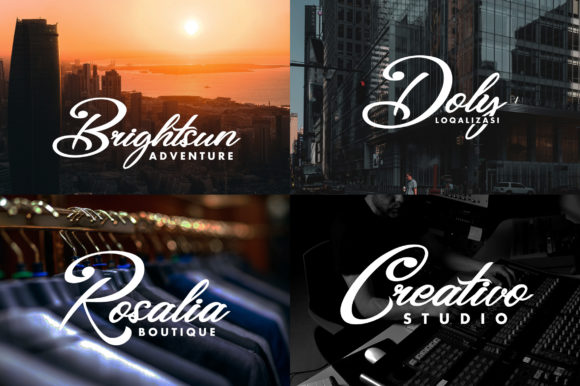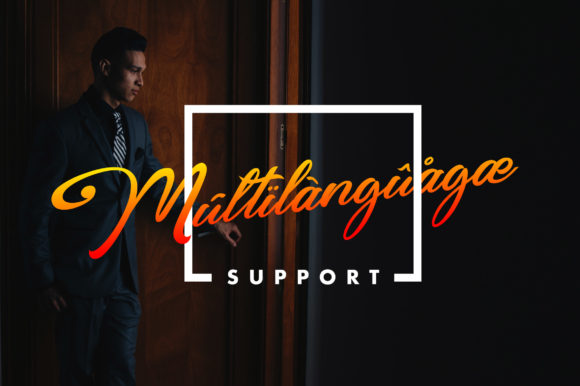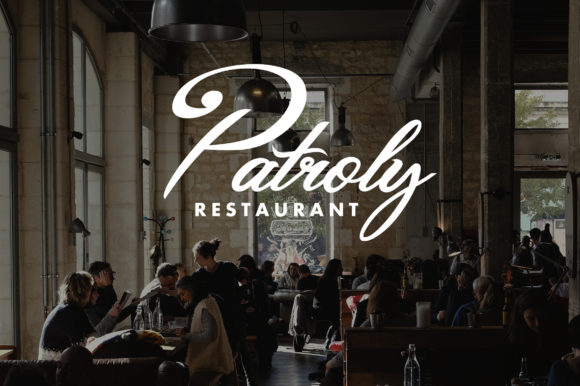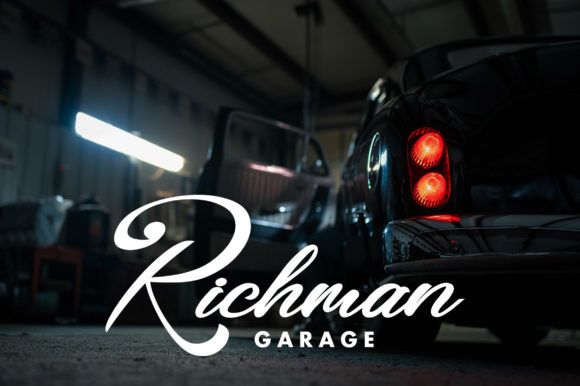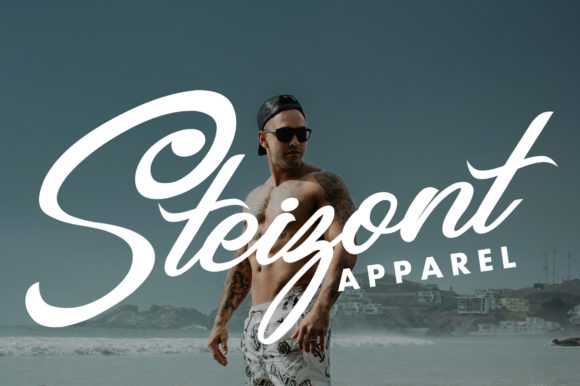
Santigold Font
About Santigold Font
The Santigold is a striking script font. It has its own personality and flowing characters which are perfect for logos, badges, packagins, headlines, posters, and much more!